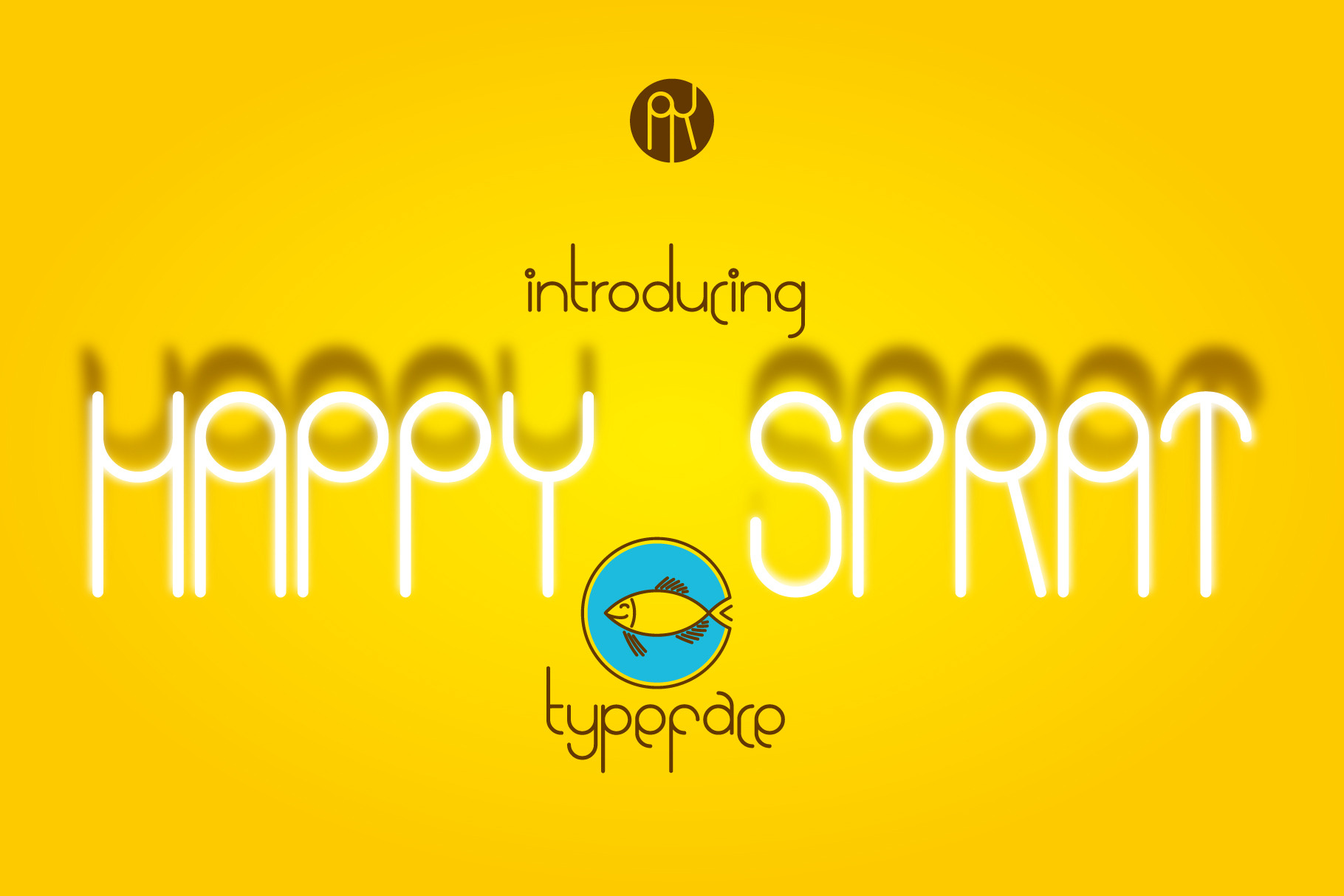
Happy Sprat Typeface
Introducing HAPPY SPRAT Typeface Font! Happy Sprat is a dynamic and modern sans serif font. The font has base latin alphabet with numbers and symbols. It's good for creating logos, headings and another different projects.